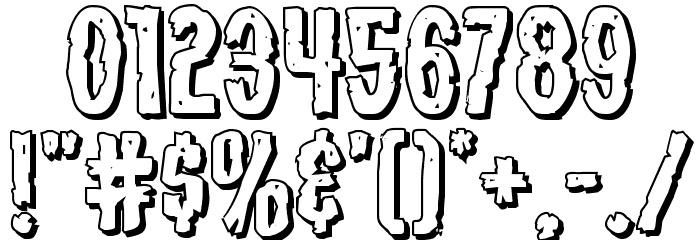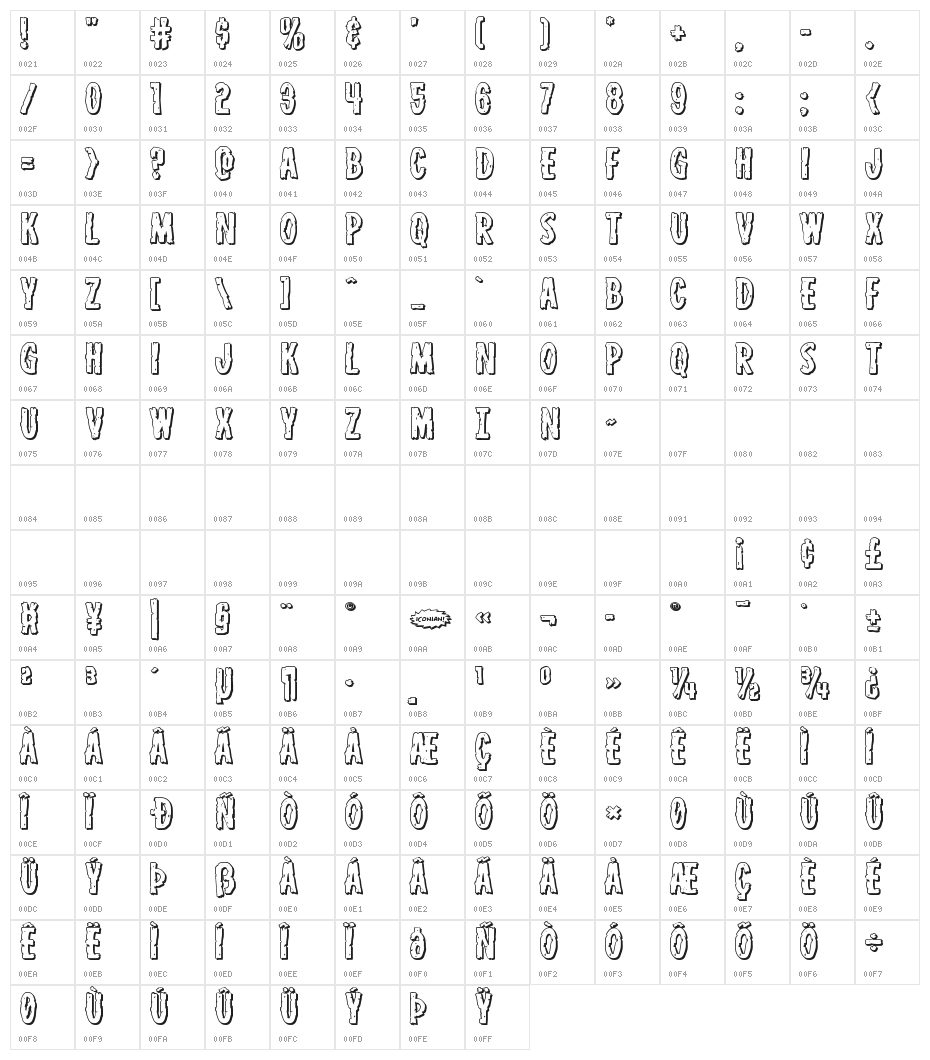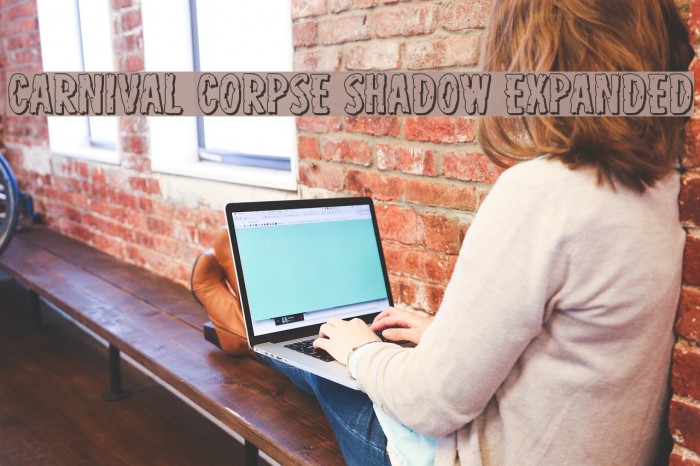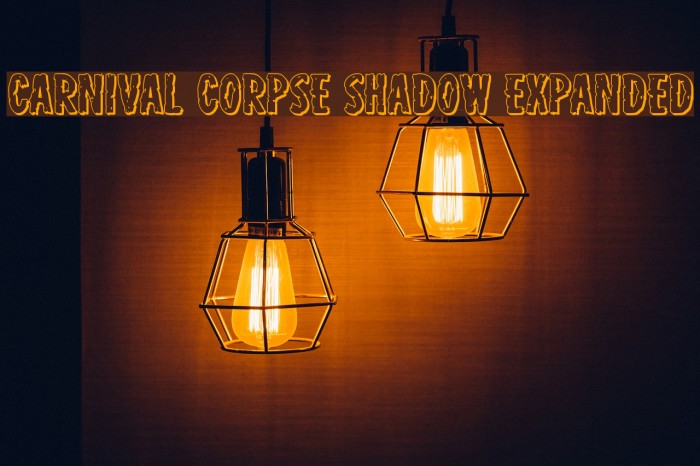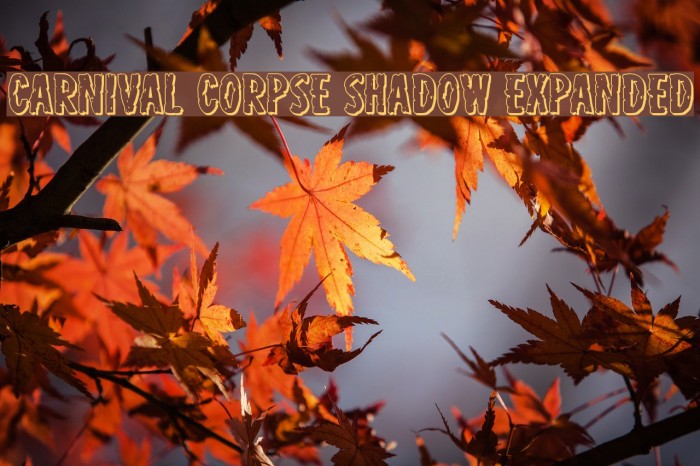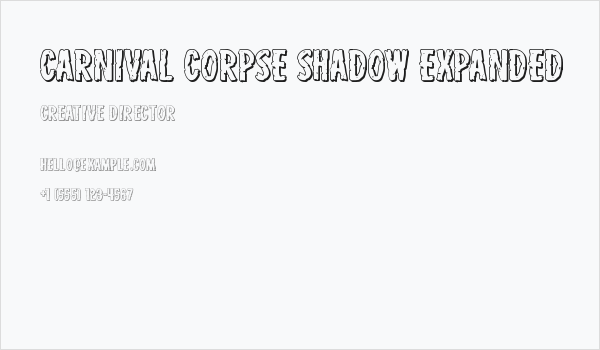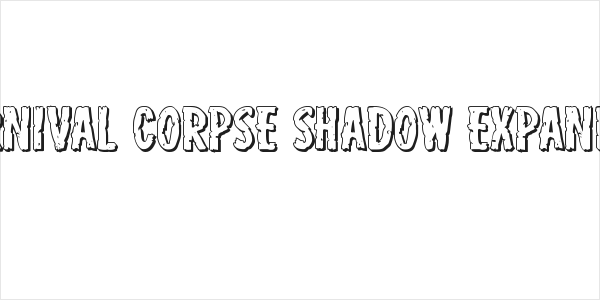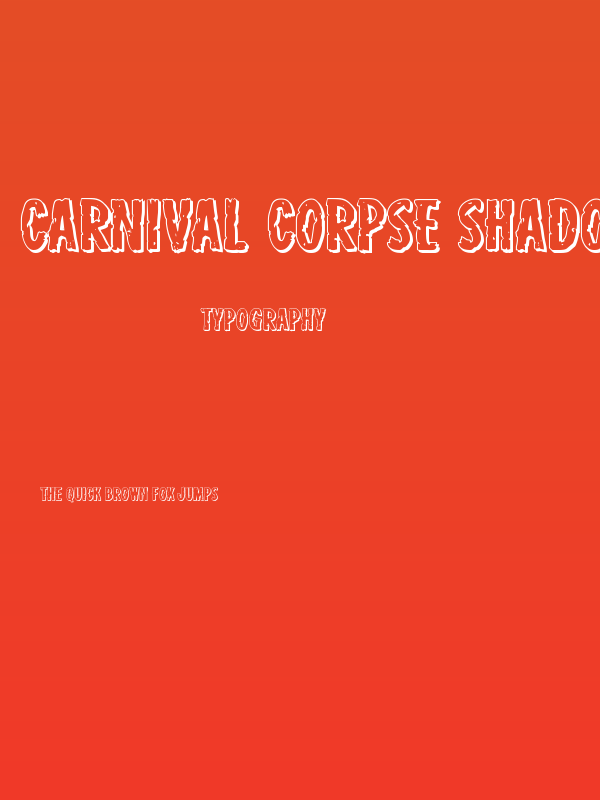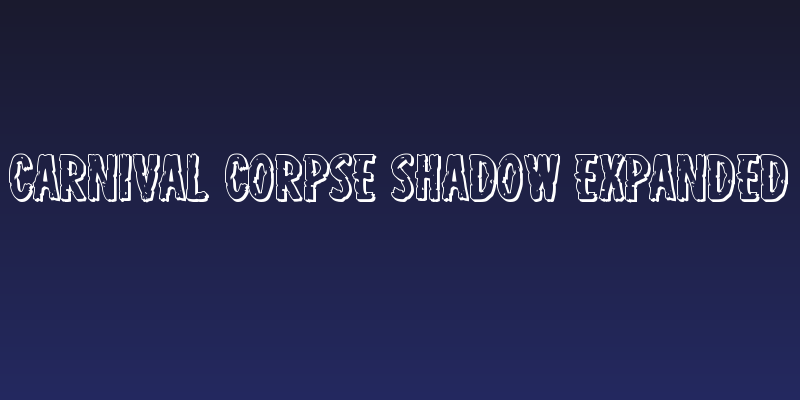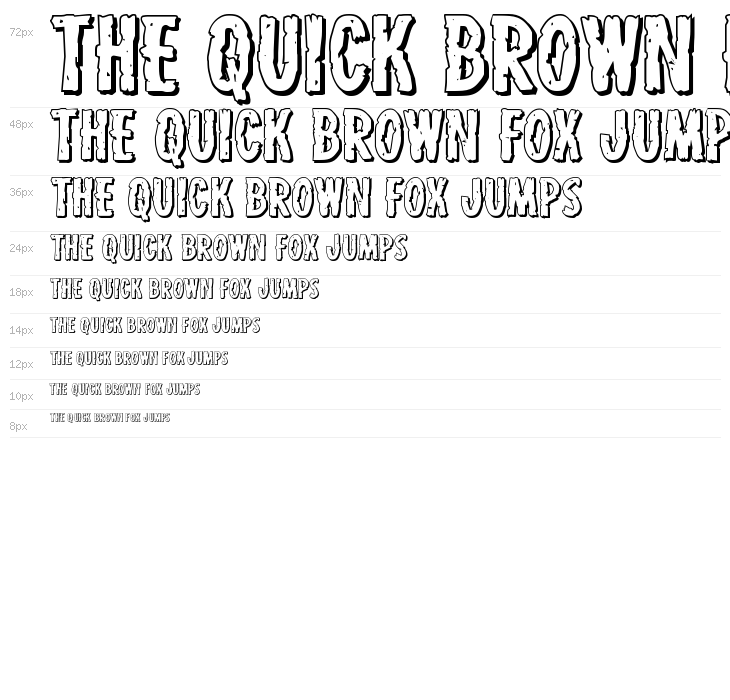
Carnival Corpse Shadow Expanded Font
Carnival Corpse Shadow Expanded Description
This font features a bold and dramatic style with a shadow effect that gives it a three-dimensional appearance. The characters are designed with rough, jagged edges, creating a distressed and eerie look. The uppercase letters are prominent and eye-catching, while the numbers and special characters maintain the same rugged aesthetic. This font is perfect for creating a spooky or horror-themed design, as it evokes a sense of mystery and intrigue. The expanded width of the characters adds to its bold presence, making it ideal for headlines or titles that need to stand out.
| Proposed Projects | Ideal for Halloween posters, horror movie titles, spooky event invitations, and themed merchandise. |